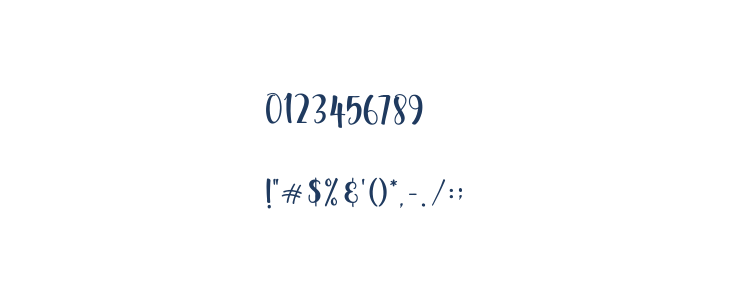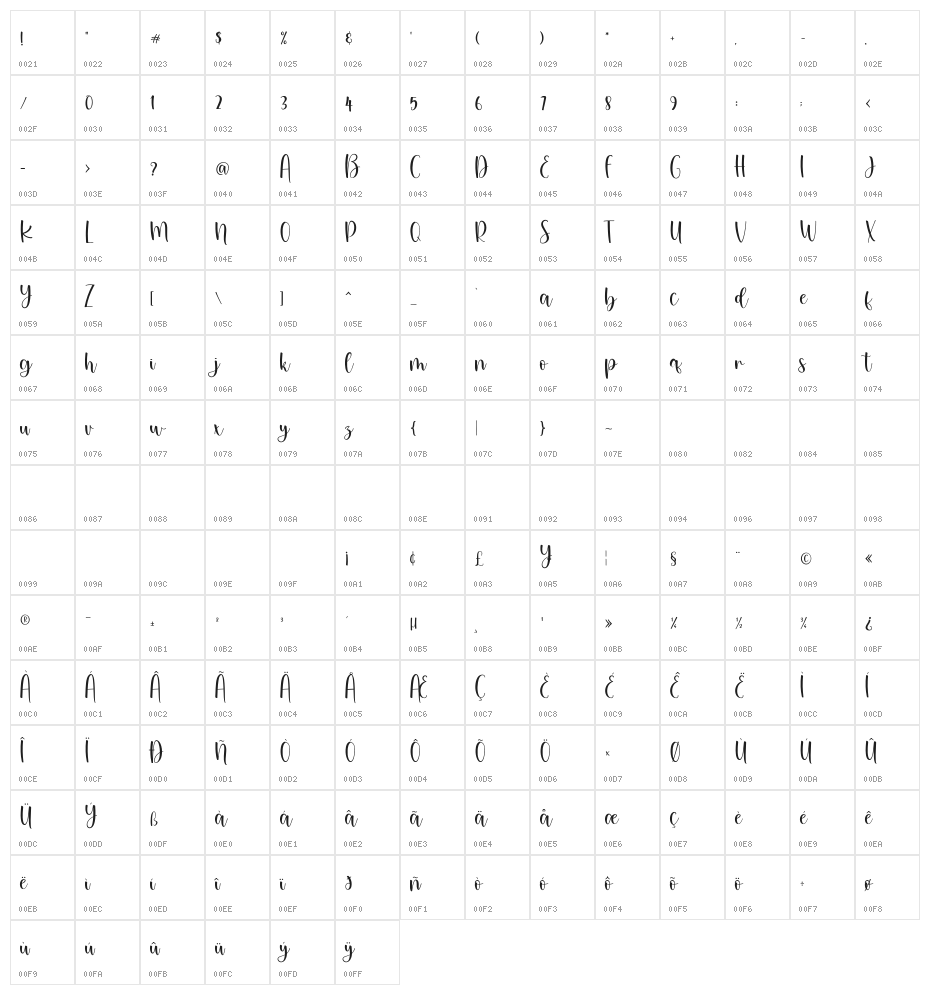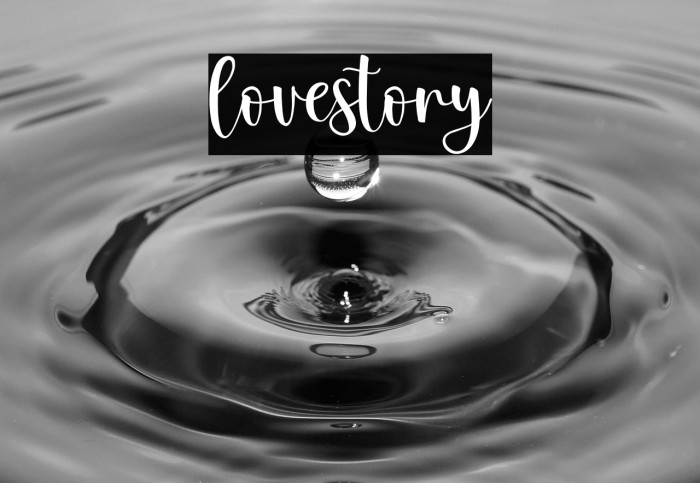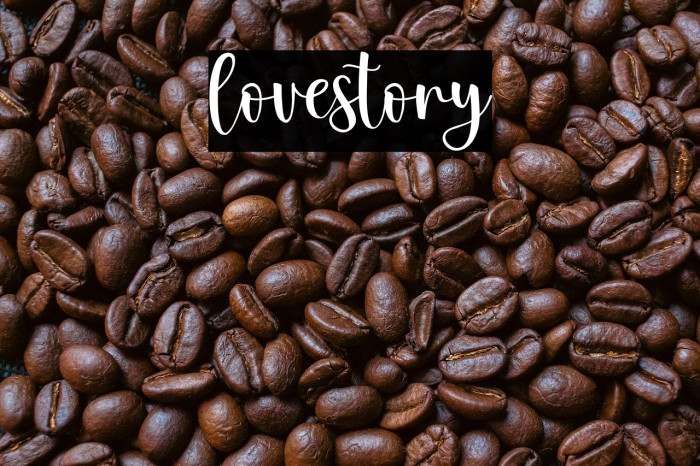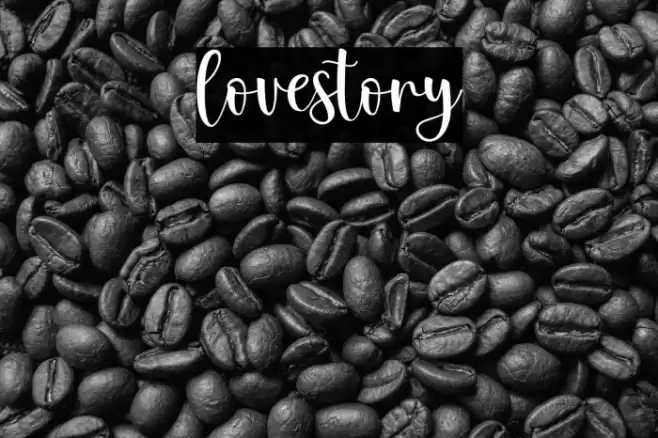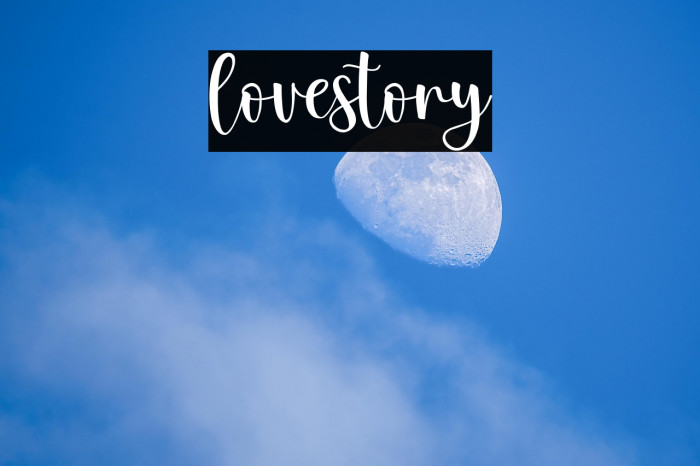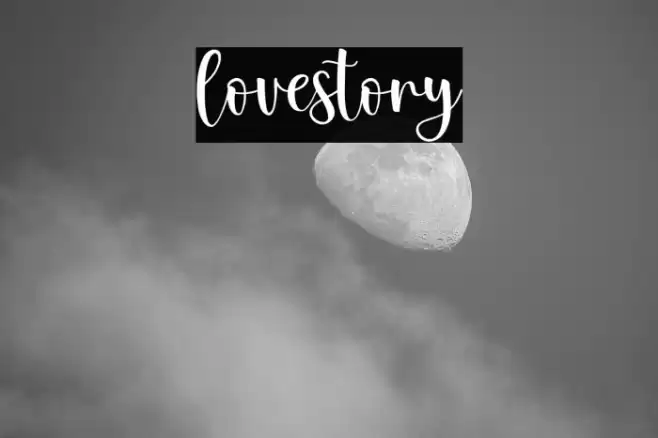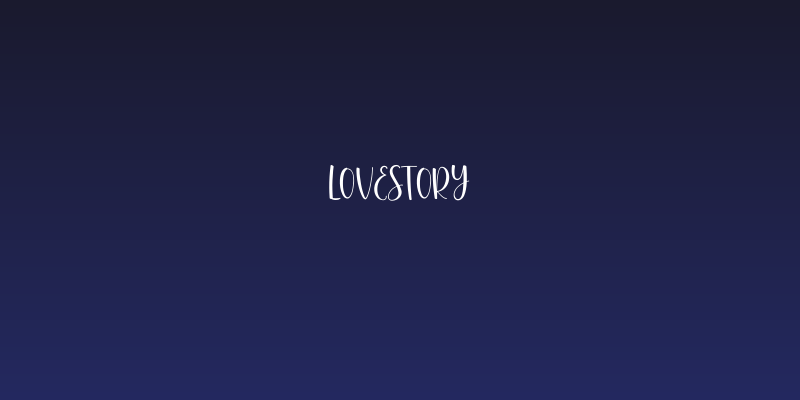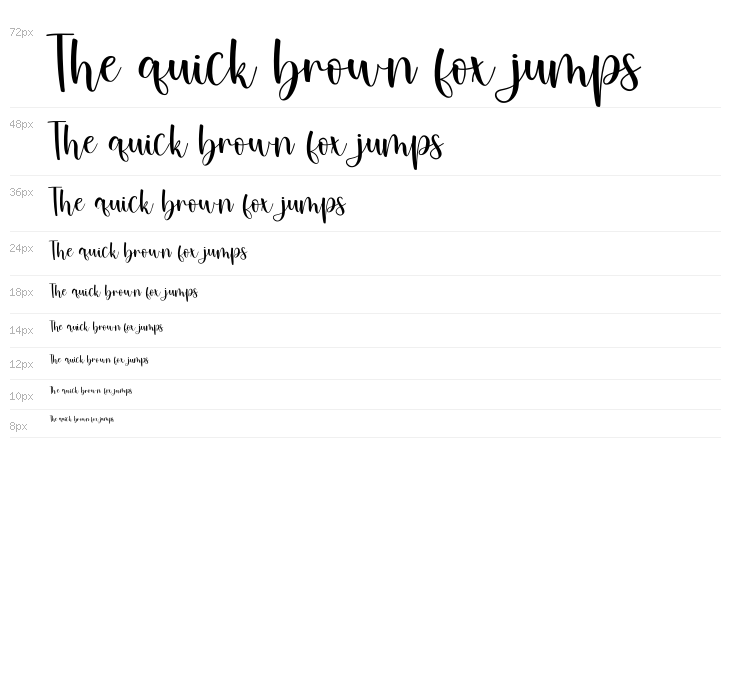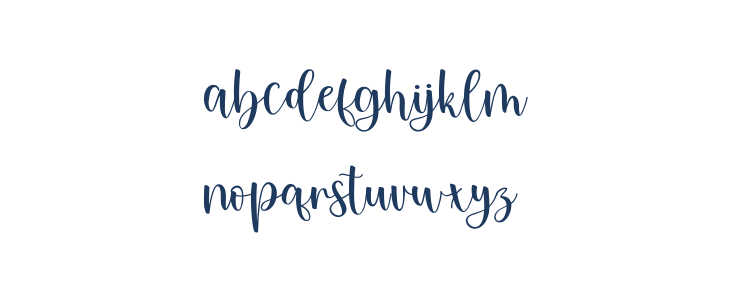
lovestory Font
lovestory Description
This font exudes a playful and romantic charm with its flowing, cursive style. The letters are elegantly crafted, featuring smooth curves and a slight slant that adds a sense of movement and grace. The uppercase letters are bold and expressive, while the lowercase letters maintain a consistent, harmonious flow. The numbers and special characters are designed to complement the overall aesthetic, ensuring versatility across different uses. This font is perfect for creating a warm, inviting atmosphere in any design project.
| Overall Style | Romantic, Playful |
| Use Case | Headlines, Invitations, Personal Branding |
| Proposed Projects | Ideal for wedding invitations, greeting cards, personal branding, and romantic-themed designs. |